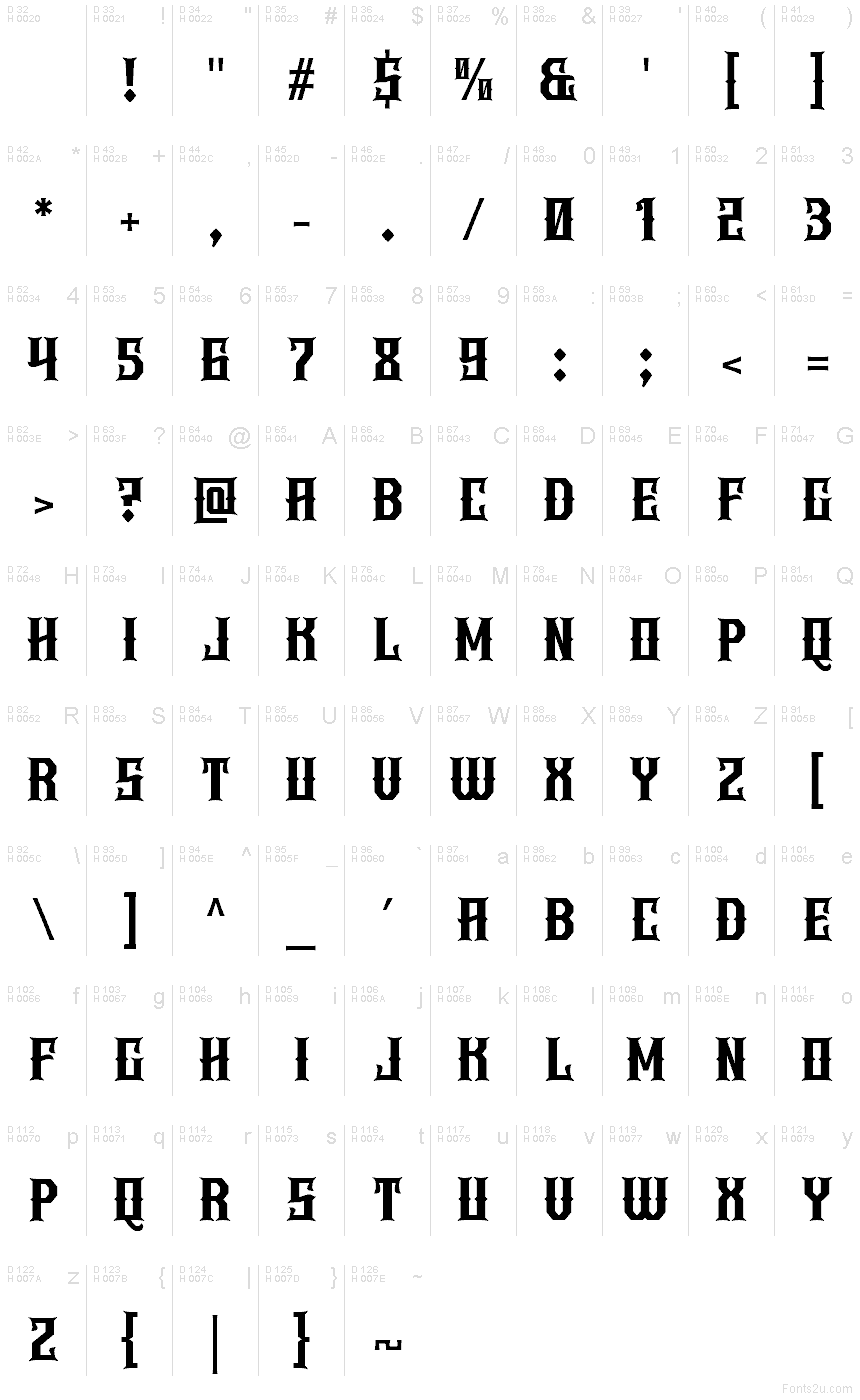
Keithor Demo Regular
Keithor font by Faqih Fawaji is a free gothic display font. Its defining trait is the chiselled, almost architectural build: tall verticals, squared shoulders, and diamond-like notches that feel forged rather than drawn. The result is a dense, commanding texture that reads fast at a glance while keeping that old-world bite. Think heavy ink, crisp edges, and a rhythm that locks up tight without collapsing.
Using Keithor, headlines snap into place—great for metal band logos, game titles, tattoo shop signage, craft beer labels, festival posters, and dark fantasy covers. This free font shines when you push it big and give it room to breathe. For balance, pair it with a light, open sans in the captions to keep the spotlight where it belongs.